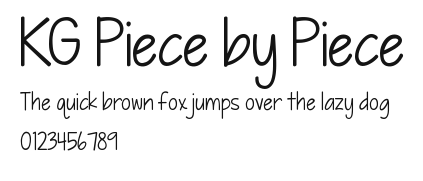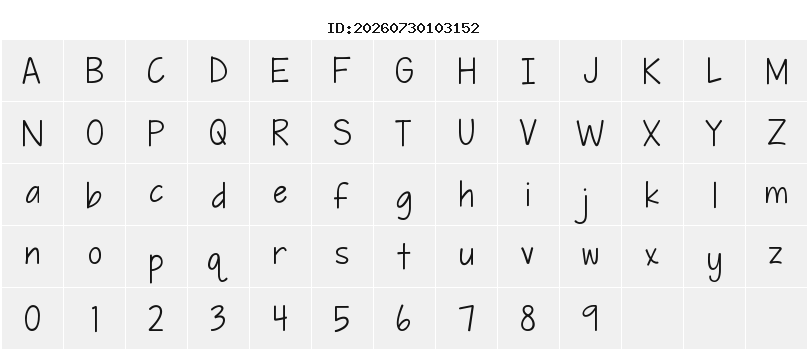
KG Piece by Piece Preview
• Font Name: KG Piece by Piece
• Font ID: KimberlyGeswein: KG Piece by Piece: 2015
• Full Font Name: KG Piece by Piece
• PostScript Name: KGPiecebyPiece
• Character Count: 354
• Designer: Kimberly Geswein
• Manufacturer: Kimberly Geswein
About KG Piece by Piece.ttf
KG Piece by Piece.ttf is a modern, elegant sans-serif font designed for ultimate readability and visual harmony. Perfect for branding, headlines, web design, and print materials.